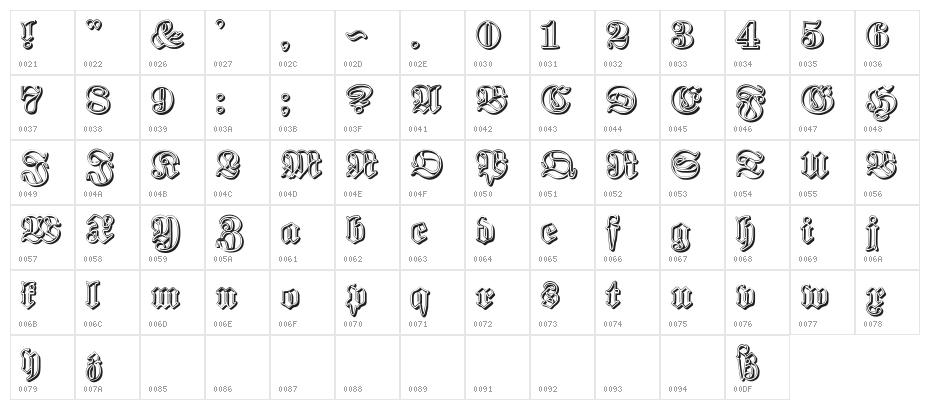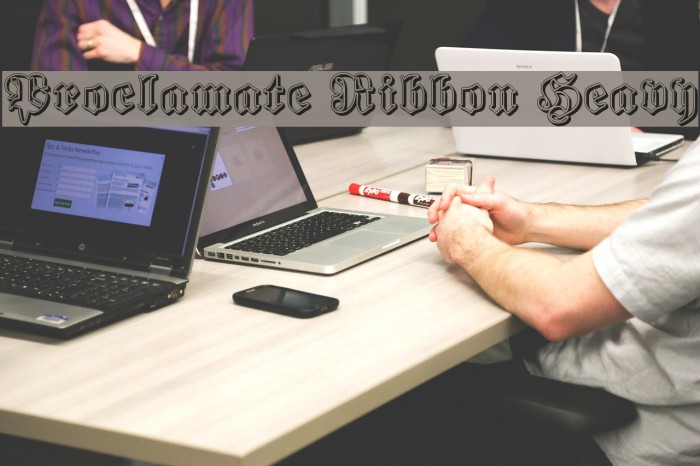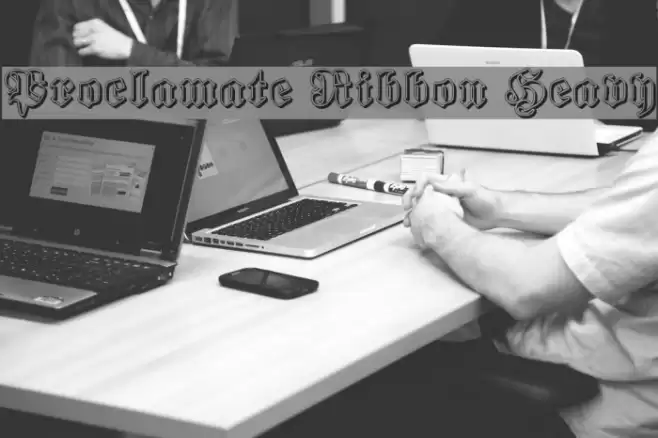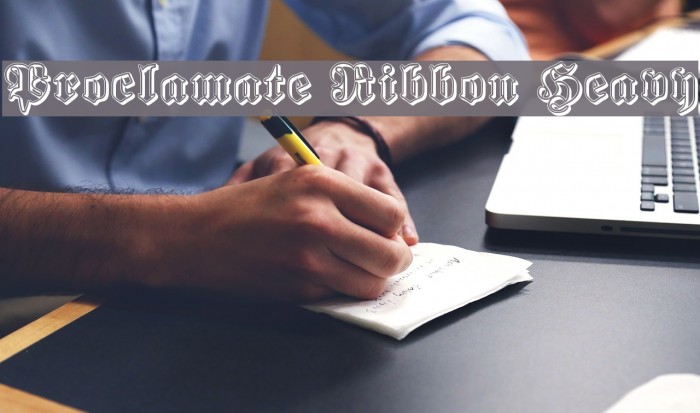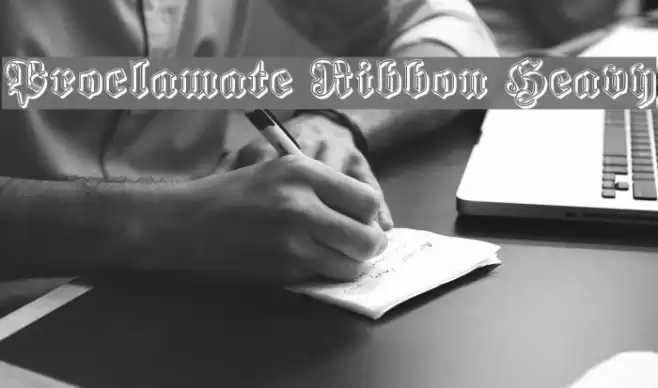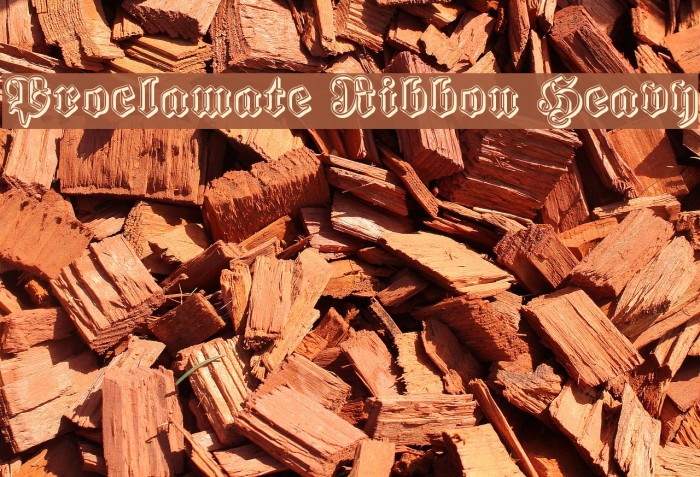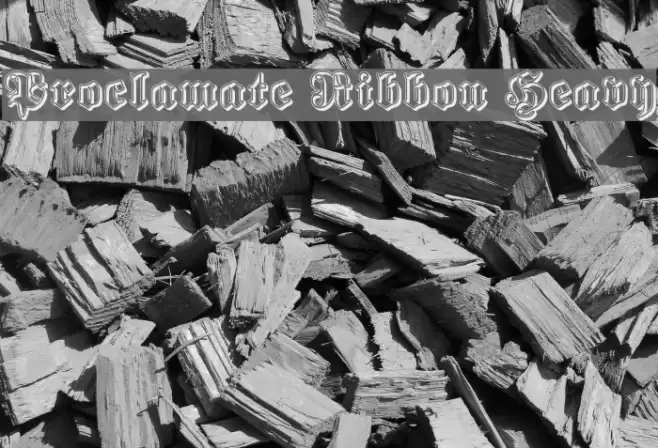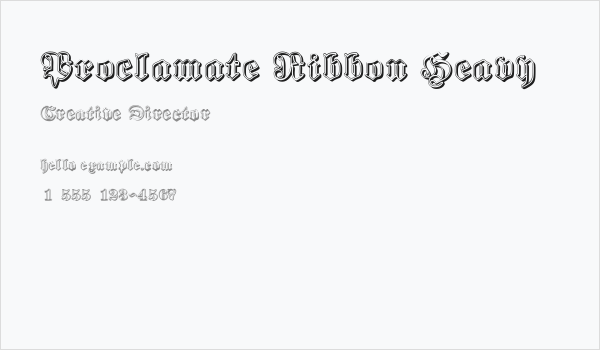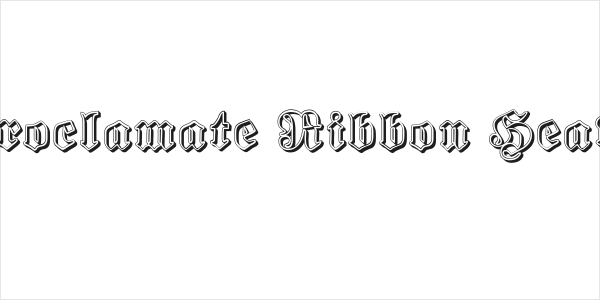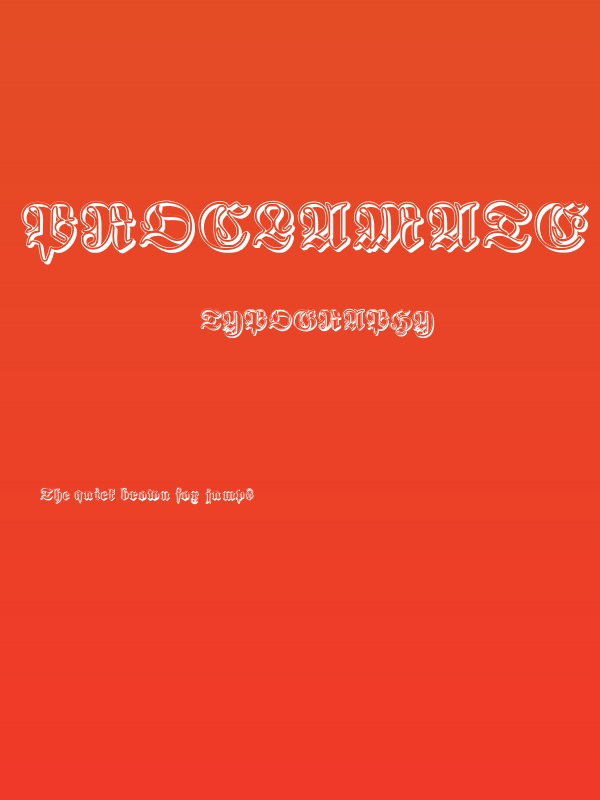
Proclamate Ribbon Heavy Font
Proclamate Ribbon Heavy Description
This font features a bold and intricate design, reminiscent of traditional blackletter styles with a modern twist. The characters are heavily stylized with sharp, angular lines and a three-dimensional ribbon-like effect that adds depth and complexity. The uppercase letters are particularly ornate, with elaborate flourishes and serifs that give them a regal appearance. The lowercase letters maintain the same level of detail, ensuring consistency throughout the typeface. Numbers and special characters are equally decorative, making this font suitable for attention-grabbing headlines and artistic projects.
| Proposed Projects | Ideal for use in branding, poster design, album covers, and any project requiring a dramatic and eye-catching typeface. |